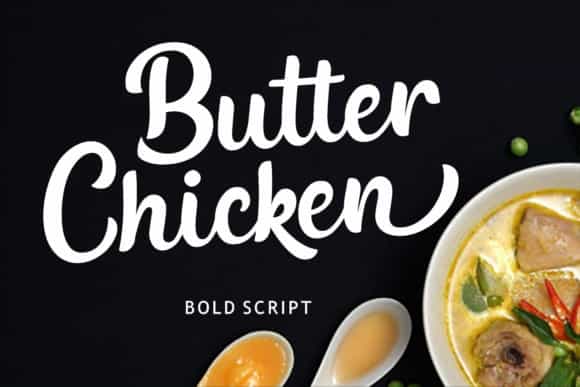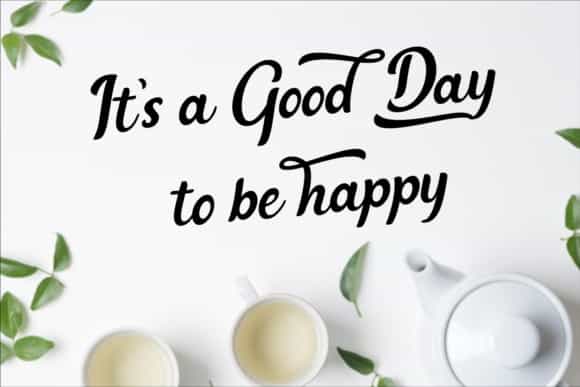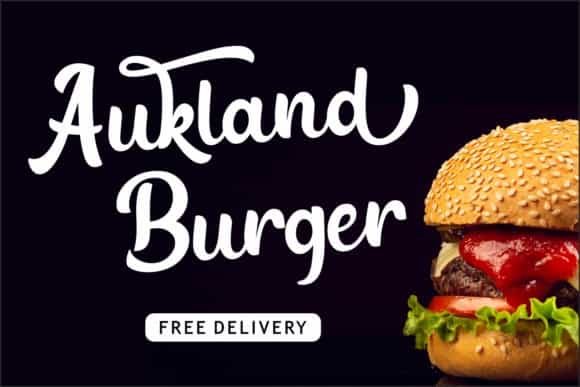
Butter Chicken is the new font that you will fall in love with. It has a bold, full-featured script and it is loaded with OpenType features. Butter Chicken is just ideal for logos, wedding invitations, stationery design, branding projects photo overlays editorial features and many more because of its smooth connections and considerable charm.